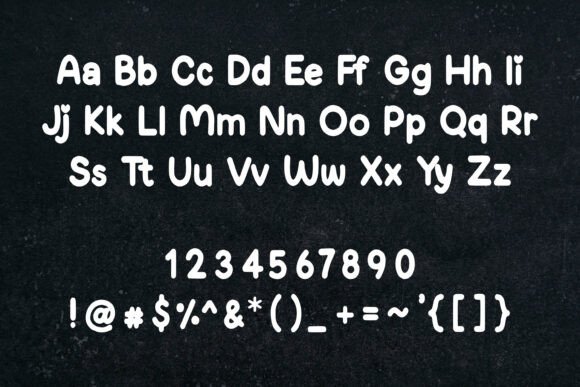
Bubble Love Font: Elevate Your Designs with a Touch of Elegance and Playfulness
Are you a designer, crafty DIY enthusiast, or a creative entrepreneur looking for the perfect font to bring your projects to life? Look no further than the captivating Bubble Love Font! Designed to complement a wide range of creative endeavors, this versatile font effortlessly adapts to your unique vision, providing a polished and distinctive touch to your designs.
Unleash Your Creativity with a Font that Adapts to Your Style
Bubble Love Font is more than just a typeface – it’s an artistic expression that understands the importance of aesthetics in design. Whether you’re aiming for elegance, modernity, playfulness, or a bold statement, this font seamlessly adjusts to your creative vision. Its unique design ensures that your branding, book covers, posters, packaging, merchandise, and more stand out in a crowded market.
Imagine having a font that can effortlessly elevate your designs, regardless of the project. Bubble Love Font offers endless possibilities for:
- Branding: Create a lasting impression with a font that exudes professionalism and style.
- Book Covers: Draw readers in with an eye-catching title that showcases your book’s personality.
- Posters: Communicate your message with clarity and visual appeal.
- Packaging: Stand out on store shelves with labels and packaging that pop.
- Merchandise: Add a personal touch to your products, from t-shirts to mugs.
A Font that Speaks to Your Artistic Expression
Bubble Love Font is designed to be a tool that brings your ideas to life. Its distinctive style invites creativity and experimentation, making it perfect for designers and crafters who value artistic expression. With this font, you’re not just choosing a typeface – you’re embracing a design philosophy that prioritizes beauty, versatility, and impact.
Key Features of Bubble Love Font
So, what makes Bubble Love Font an indispensable part of your design toolkit? Here are some of its key features:
- Versatility: Works well with a variety of design projects, from digital to print.
- Elegance: Adds a touch of sophistication to any design.
- Playfulness: Injects fun and personality into your projects.
- Bold Statement: Makes a significant impact without overwhelming the senses.
Why Choose Bubble Love Font?
In a world where design is king, having a font that can keep up with your creative demands is invaluable. Here are a few reasons why Bubble Love Font should be your go-to choice:
- Unique Style: Stands out in a sea of generic fonts.
- High-Quality Design: Professionally crafted for clarity and impact.
- Time-Saving: Quickly find the perfect look for your project without starting from scratch.
Bubble Love Font is more than just a typeface – it’s a creative partner that helps you bring your vision to life. With its elegant, modern, playful, and bold styles, it’s the perfect addition to any design project. Whether you’re a seasoned designer or a DIY enthusiast, this font will help you create stunning works that speak to your artistic expression. So why wait? Dive into the world of Bubble Love Font today and discover a new level of design possibilities!